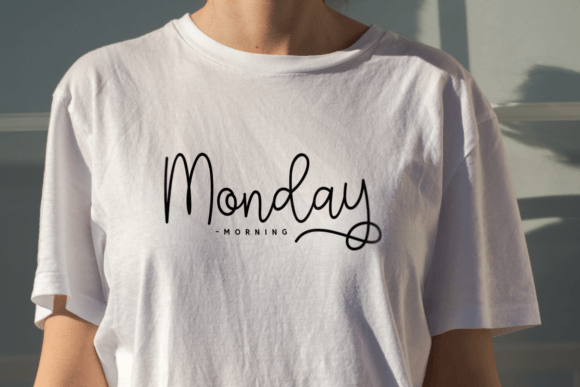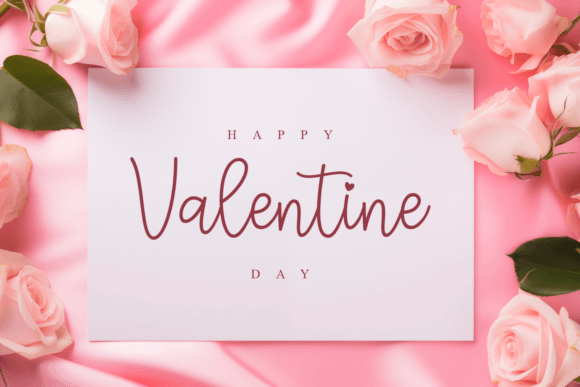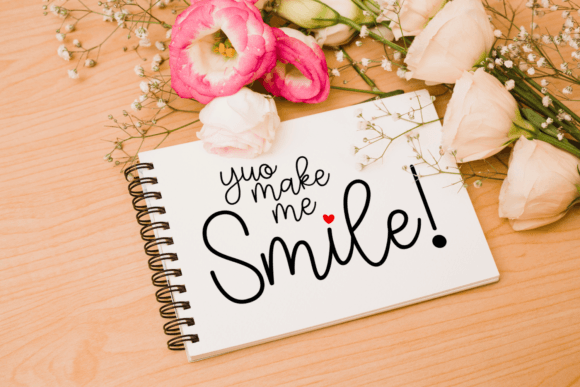
Cailin Font: A Charming Script Font for Your Design Needs
Are you looking for a font that can add a touch of romance and elegance to your designs? Look no further than the Cailin font. This charming script font is perfect for creating beautiful cards, invitations, and other designs that require a soft, lovely feel. In this article, we’ll take a closer look at the Cailin font, its features, and how you can use it to elevate your designs.
What is Cailin Font?
Cailin is a script font that boasts a sweet, flowing style, reminiscent of handwritten letters. Its elegant, cursive design makes it perfect for creating romantic and feminine designs. The font features beautiful, heart-shaped swirls that add a touch of whimsy and playfulness to your designs. Whether you’re creating wedding invitations, greeting cards, or social media graphics, the Cailin font is sure to impress.
Key Features of Cailin Font
- Handwritten style: The Cailin font has a beautiful, handwritten style that gives it a personal and intimate feel.
- Elegant swirls: The font features elegant, heart-shaped swirls that add a touch of romance and whimsy to your designs.
- Sweet and flowing: The Cailin font has a sweet, flowing style that’s perfect for creating beautiful, cursive designs.
- Perfect for romantic designs: The font’s romantic and feminine design makes it perfect for creating wedding invitations, greeting cards, and other romantic designs.
Uses of Cailin Font
The Cailin font is versatile and can be used for a variety of design projects, including:
- Wedding invitations: The font’s elegant and romantic design makes it perfect for creating beautiful wedding invitations.
- Greeting cards: The Cailin font is perfect for creating greeting cards for special occasions, such as birthdays, anniversaries, and holidays.
- Social media graphics: The font’s sweet and flowing style makes it perfect for creating social media graphics, such as Instagram posts and Facebook graphics.
- Branding and packaging: The Cailin font can also be used for branding and packaging design, particularly for businesses that want to create a feminine and elegant brand image.
Tips for Using Cailin Font
Here are some tips for using the Cailin font effectively in your designs:
- Pair with a simple font: The Cailin font is elegant and cursive, so it’s best to pair it with a simple font to avoid overwhelming the design.
- Use a large font size: The font’s swirls and flourishes are beautiful, but they can get lost if the font size is too small. Use a large font size to showcase the font’s features.
- Experiment with colors: The Cailin font looks beautiful in a variety of colors, so don’t be afraid to experiment and find the perfect color for your design.
The Cailin font is a charming script font that’s perfect for designers and crafters who want to add a touch of romance and elegance to their designs. Its sweet, flowing style and elegant swirls make it perfect for creating beautiful cards, invitations, and other designs. With its versatility and beautiful design, the Cailin font is sure to become a favorite in your design arsenal.
Get Creative with Cailin Font
Ready to get creative with the Cailin font? Here are some ideas to get you started:
- Create a beautiful wedding invitation: Use the Cailin font to create a stunning wedding invitation that will impress your clients.
- Design a set of greeting cards: The Cailin font is perfect for creating a set of greeting cards for special occasions.
- Develop a brand identity: Use the Cailin font to create a feminine and elegant brand identity for your business.